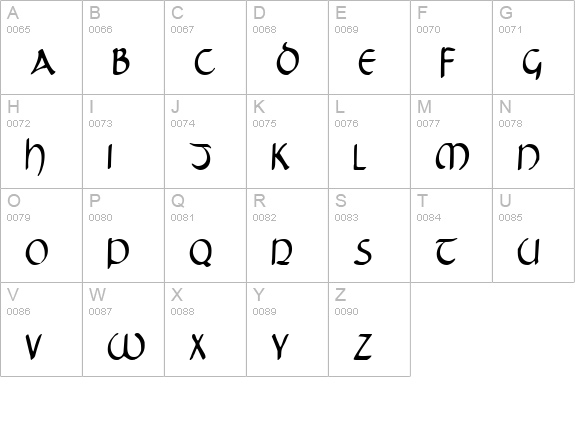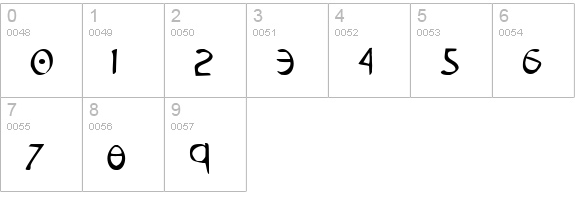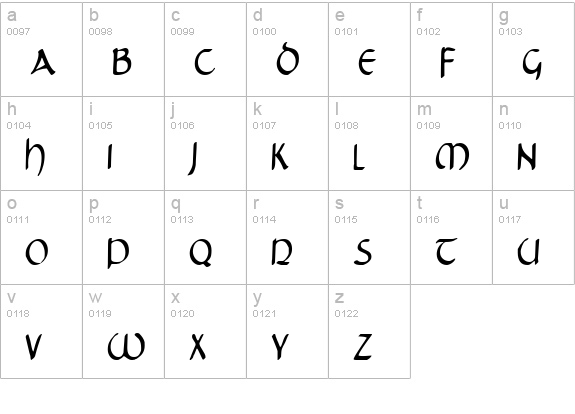
Tristram Condensed is a distinctive, condensed-width variant in the Tristram typeface family \xE2\x80\x94 well suited to design and typography projects.
Tristram Condensed font is a sleek and modern typeface that exudes elegance and sophistication. With its clean lines and sharp edges, this font is perfect for creating eye-catching designs that demand attention. The condensed style of Tristram gives it a unique and contemporary look that is ideal for a wide range of design projects. What sets Tristram Condensed font apart is not only its exceptional design, but also the fact that it is available for free download at FontsMarket.com. This means that you can easily access this high-quality font and use it in your projects without any cost. Whether you're working on branding, advertising, or any other creative endeavor, Tristram Condensed font is a versatile and stylish choice that will elevate your designs to the next level. Download it now and unleash your creativity with this stunning typeface.